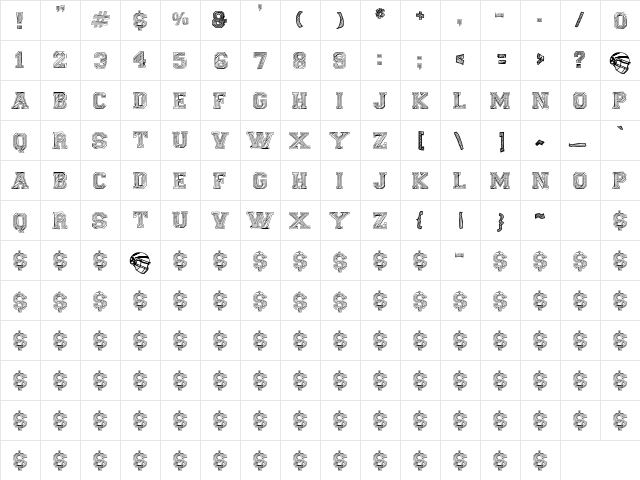
Fine College Regular
Design Context for Fine College Typeface
Fine College has the bold swagger of sports branding: strong, assertive letterforms designed to dominate headlines and jerseys alike.
A natural choice for gym brands, fantasy sports, jersey lettering, and action-driven headlines.
Pro Tip: Use Fine College in all-caps headlines where its athletic energy can fully express itself. Pair with a solid, simple sans for supporting text.